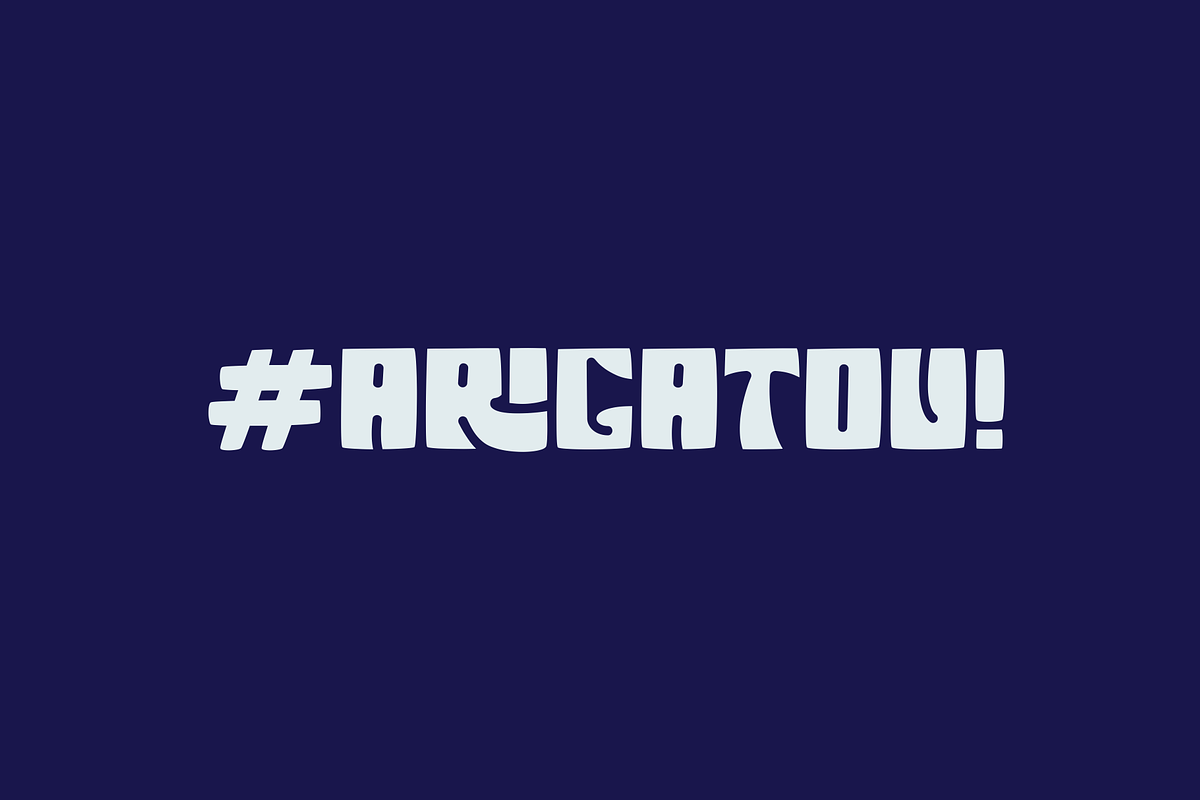
Arthos
Arthos.
A flowing energy font. The curvy line and sharp nodes combination, gives this font family a humanist touch with punch of energy. A fresh tropical vibe that shows it versatility to be used in many possibilities.
Comes in Regular, Italic, Slim, and Shadow - with ligature,symbol,and multi-language support as well.